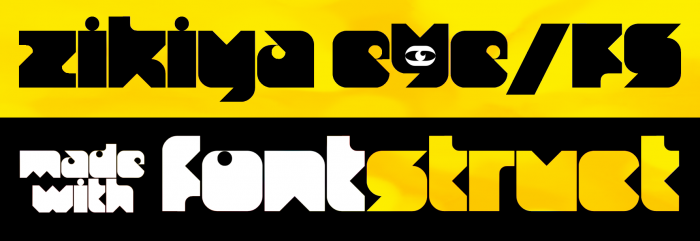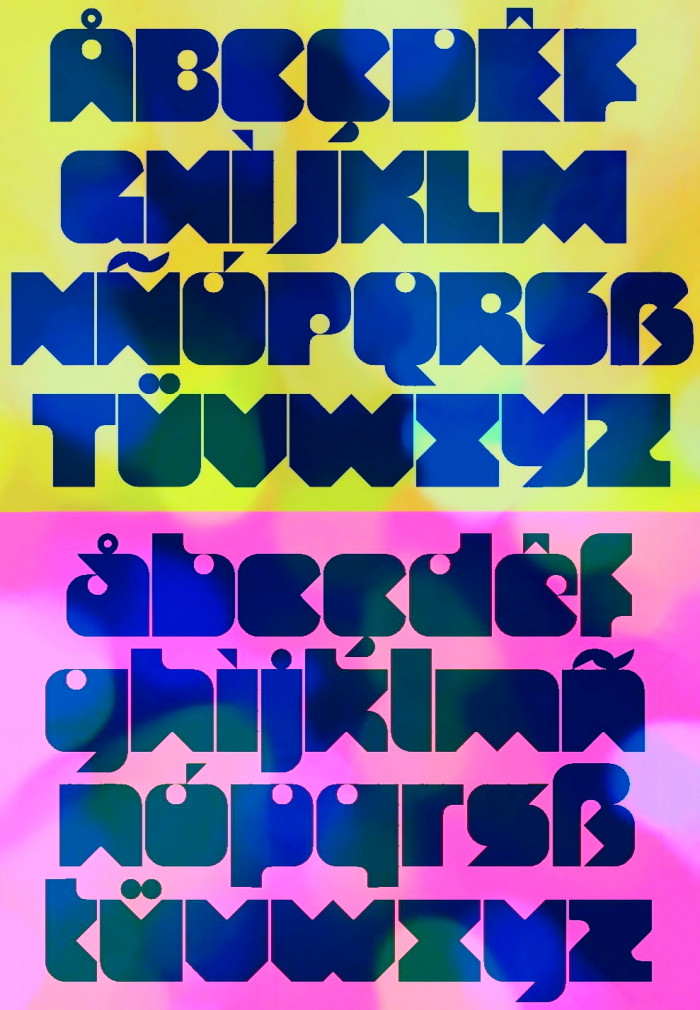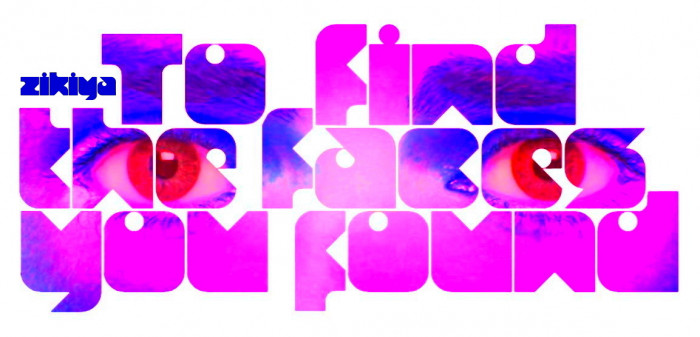
This font is a not too curious case. It comes after trying to prove to myself (with a high percentage of satisfaction, but not quite yet) that FS can allow me to create pro-looking fonts. I am thinking, for example, of zerena, zchreibengroß, zimmera, zenando, zenantoo, zanze, zinckel and others like that. Every time I finish a font that has taken me a long time to complete, I feel the need to look back and do something more relaxed and simple. Thus, without any pretense but feeling fun and friendly, zikiya was born. Hope you like it.
Nice and chubby my friend!
Very nice. Love the e.
Nice samples. This brings out the fine details (edges and curves) so beautifully. Reminds me a bit of fours fonts ; )
The ß is still a bit rough and needs a bit of attention. Maybe I can come up with something else…? I find the ligatures Æ/æ and Œ/œ are very successful. They merge into a kind of communication and together create a wonderful symbiosis, a dialogue. I would like to know what they tell each other : ))
Would definitely say that a "pro-looking font" was indeed created~